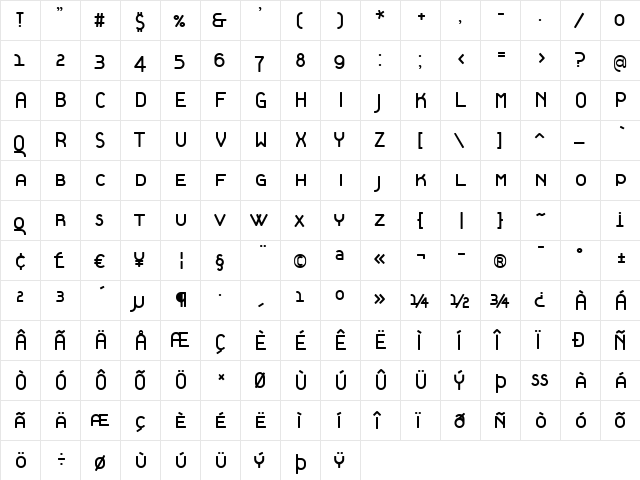
TantalusSmallCaps Regular
Design Context for TantalusSmallCaps Typeface
TantalusSmallCaps is a composed and adaptable typeface that performs quietly and consistently across a wide range of design contexts.